Arshine Rounded Stamp
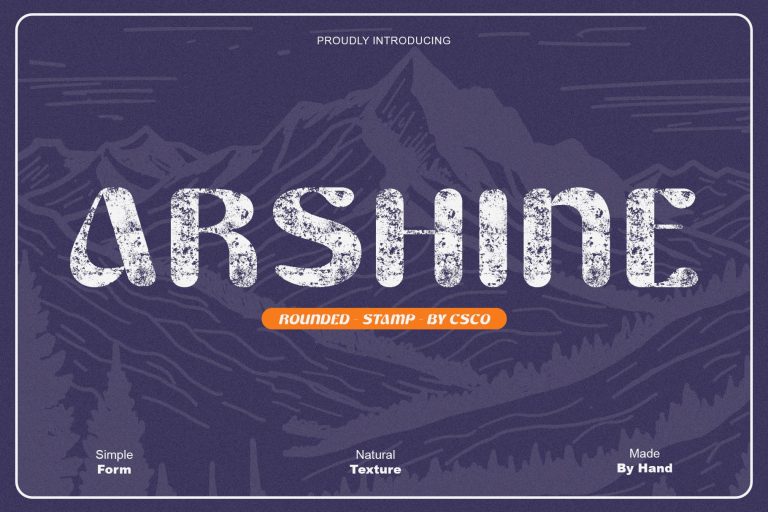
Bold Sans Serif with Rounded PersonalityThis is a bold sans serif display font that blends funky retro vibes with a smooth, rounded finish. Its playful yet confident shapes make every word pop with energy and style, ensuring your design captures attention from…
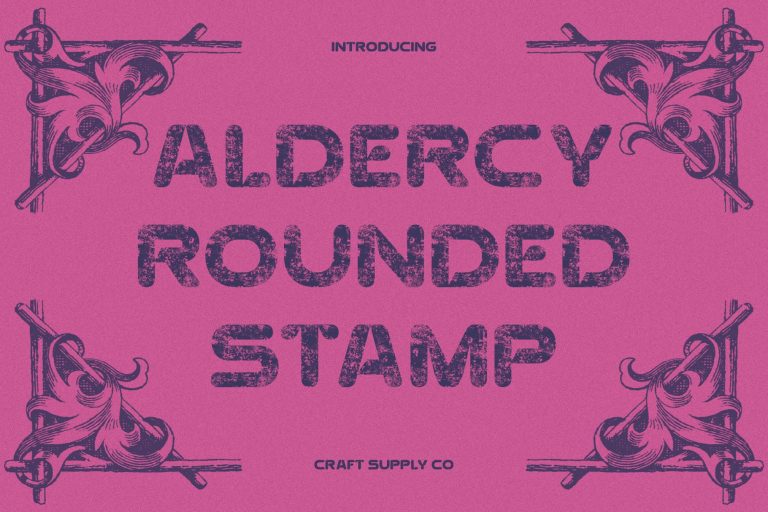
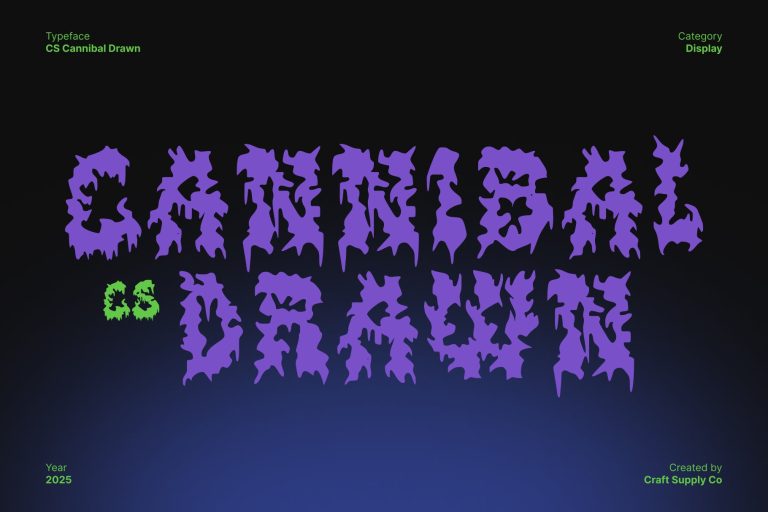Aldercy Rounded Stamp
Bold Sans Serif with Rounded FormThis is a bold sans serif display font that merges futuristic precision with vintage character. Its rounded letterforms give it a smooth, modern appeal, while the added stamp texture infuses it with depth, warmth, and handmade authenticity…
CS Cannibal Drawn
Black Metal Display Font with Hand-Drawn EnergyThis is a raw and aggressive black metal font that embodies chaos, rebellion, and intensity. Its jagged spikes and uneven strokes bring an untamed, handcrafted energy to every letterform, evoking the brutal aesthetics of underground music…
CS Bogart Drawn
Elegant Serif with a Handcrafted EdgeThis is a modern serif font that blends sharp sophistication with handcrafted artistry. Each letterform features precise, functional shapes that exude confidence and balance, while the drawn handmade effect introduces a touch of human warmth and individuality.…
Briallen Stamp
Refined Serif with Decorative CharmThis is a stylistic serif font that blends artistic detail with timeless sophistication. Its decorative alternates and unique ligatures add a refined, custom-made touch, while the stamp texture introduces a subtle vintage character making each letter feel handcrafted…
Brendie Stamp
Modern Grotesk with Vintage PersonalityThis is a modern grotesk sans serif font that blends minimal structure with handcrafted charm. Its clean geometry and balanced proportions create a professional, versatile look, while the subtle stamp texture introduces warmth and depth. This combination bridges…
Asvoria Stamp
Elegant Sans Serif with Artistic FlowThis is a modern serif font that blends elegant form with stylish flow, creating a sophisticated and graceful visual appeal. Its balanced proportions and refined letterforms exude a sense of confidence and beauty, making it ideal for…
CS Bugle Drawn
Hand-Drawn Display Font for Maximum ImpactThis is a bold display sans serif crafted to make a powerful statement. Its solid, confident letterforms demand attention, while the hand-drawn effect infuses each shape with expressive texture and artistic warmth. Strong Forms with Creative CharacterBlending…
Belmein Stamp
Grotesk Serif with Inktrap DetailingThis is a modern grotesk sans serif font that merges clean geometry with subtle inktrap details, creating a perfect balance between precision and personality. Its structured design ensures clarity and functionality, while the inktrap features add depth and…
Brendie Rounded Stamp
Rounded Shapes with Contemporary BalanceThis is a modern grotesque sans serif that fuses smooth, rounded forms with clean, contemporary structure. Each letter is designed with careful precision, achieving the perfect balance between geometric simplicity and soft approachability. This blend of modernity and…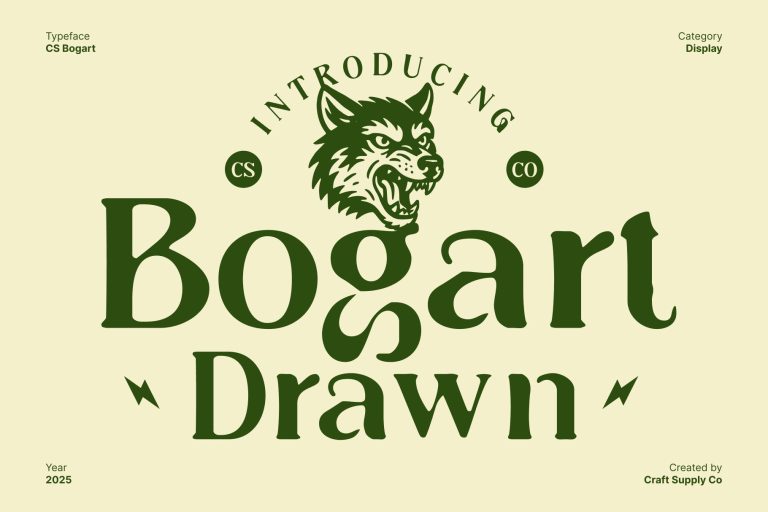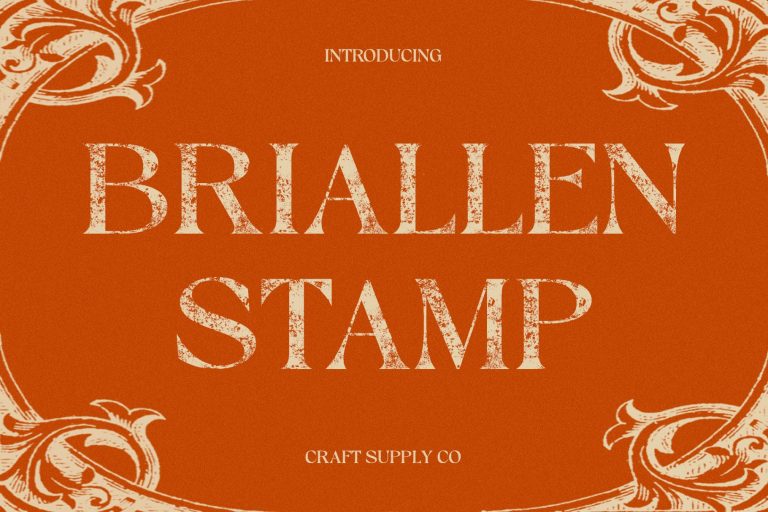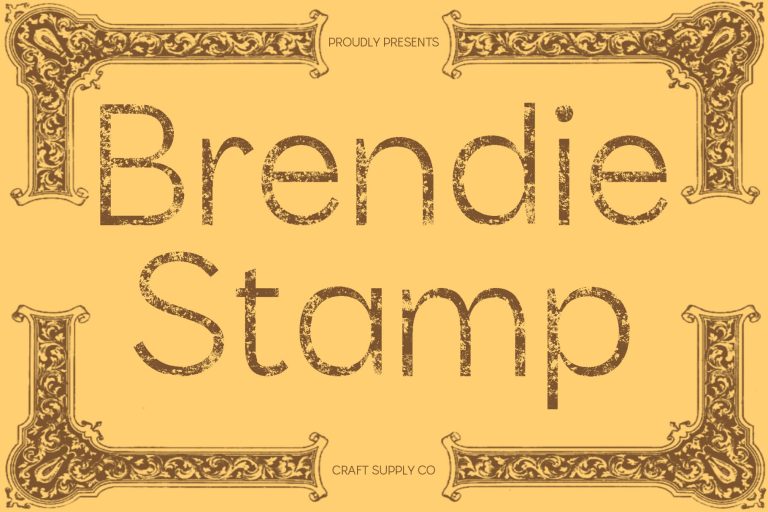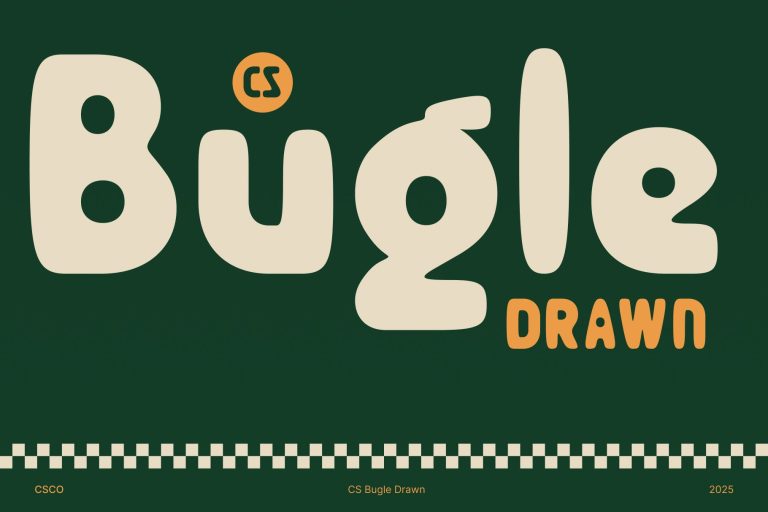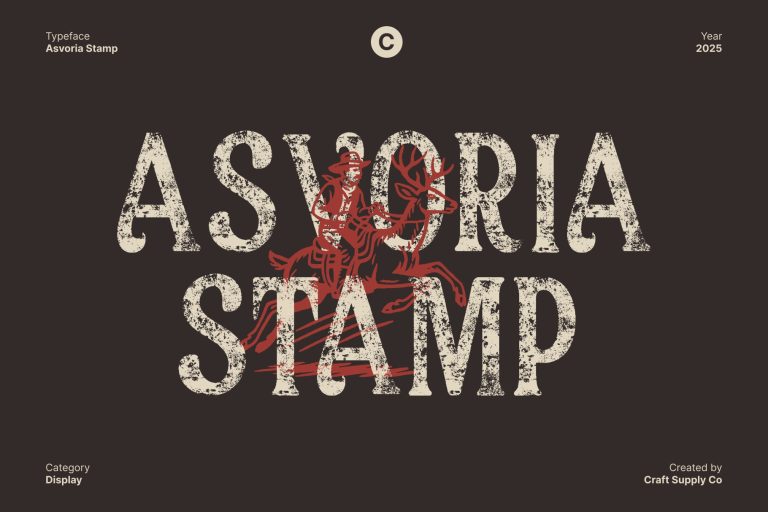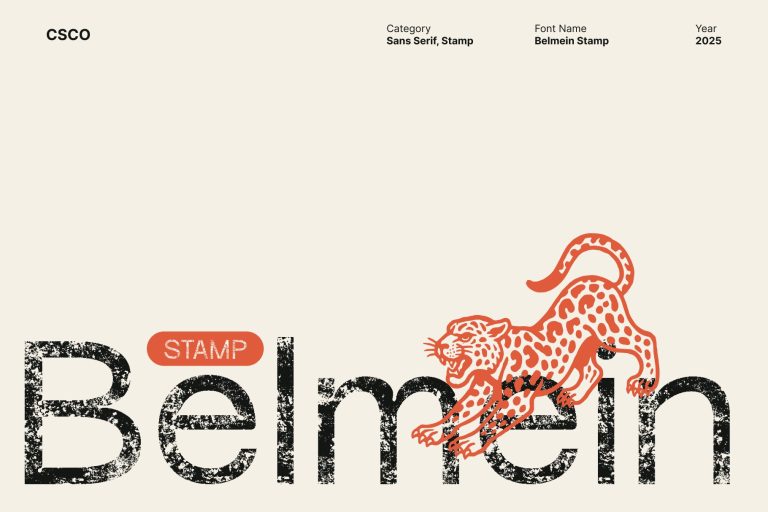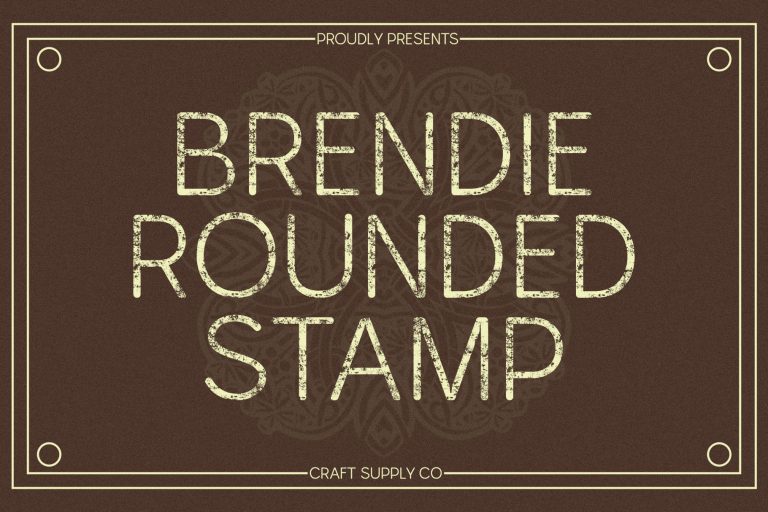